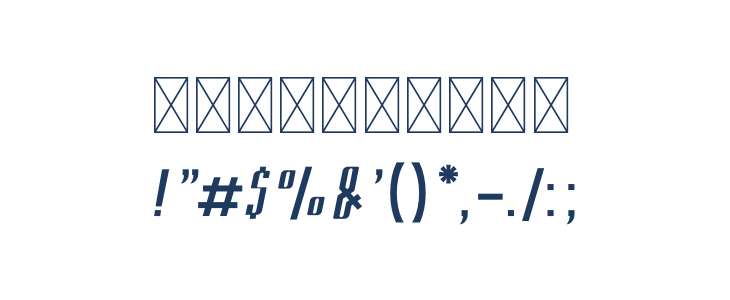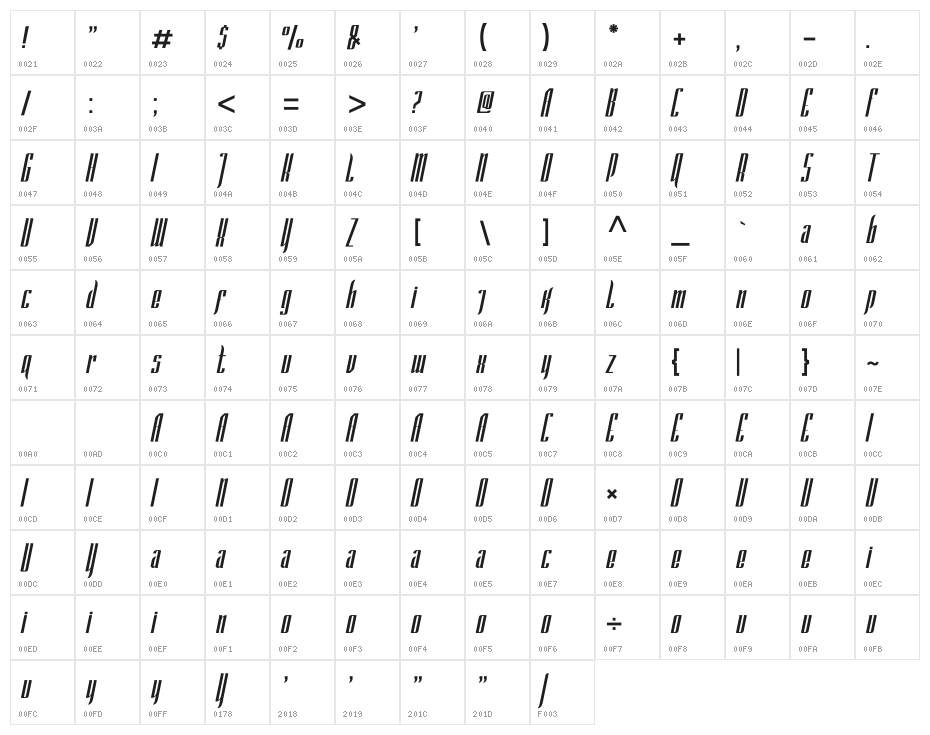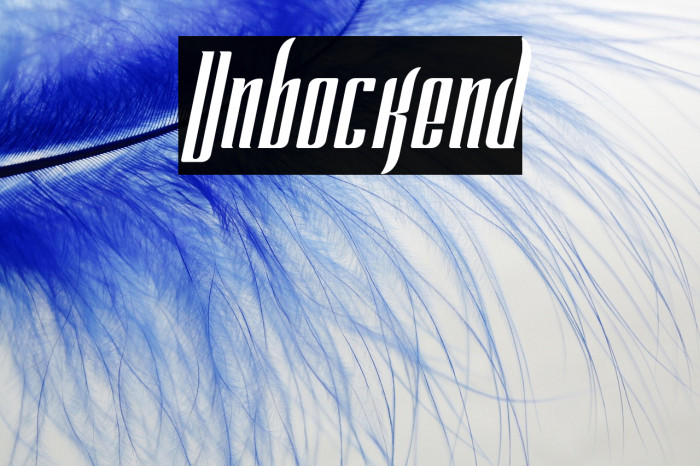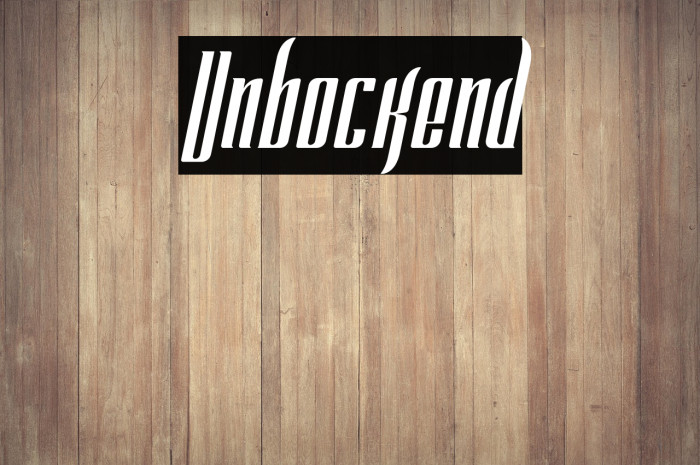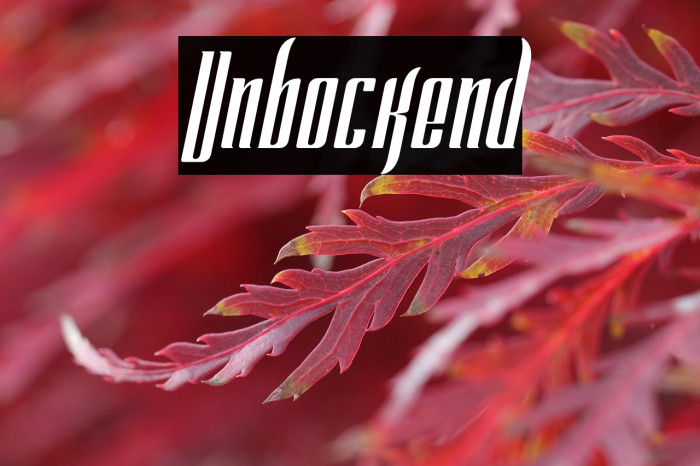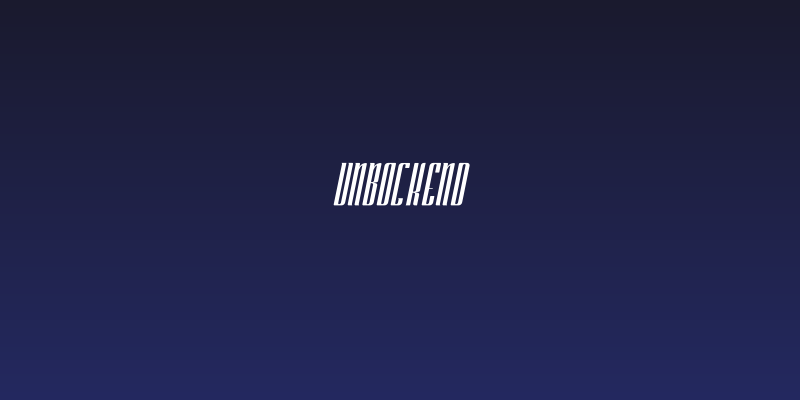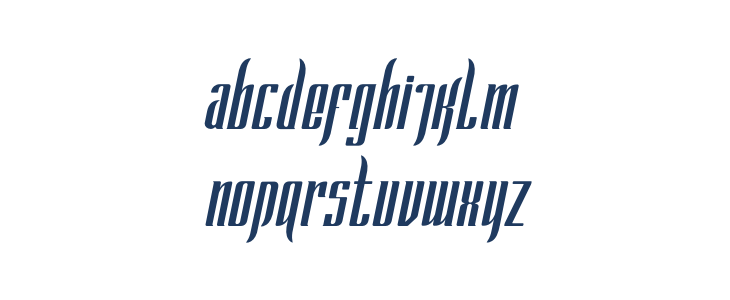
Unbockend Font
Unbockend Description
This font features a bold, angular design with a strong emphasis on vertical lines, giving it a dynamic and energetic appearance. The uppercase letters are tall and narrow, with sharp serifs that add a touch of elegance. The lowercase letters maintain the same angular style, creating a cohesive look across the alphabet. The numbers and special characters are designed to match the overall aesthetic, ensuring consistency throughout. This font's unique style makes it stand out, making it suitable for projects that require a bold and impactful visual statement.
| Proposed Projects | Ideal for branding, posters, and headlines where a strong visual impact is desired. |